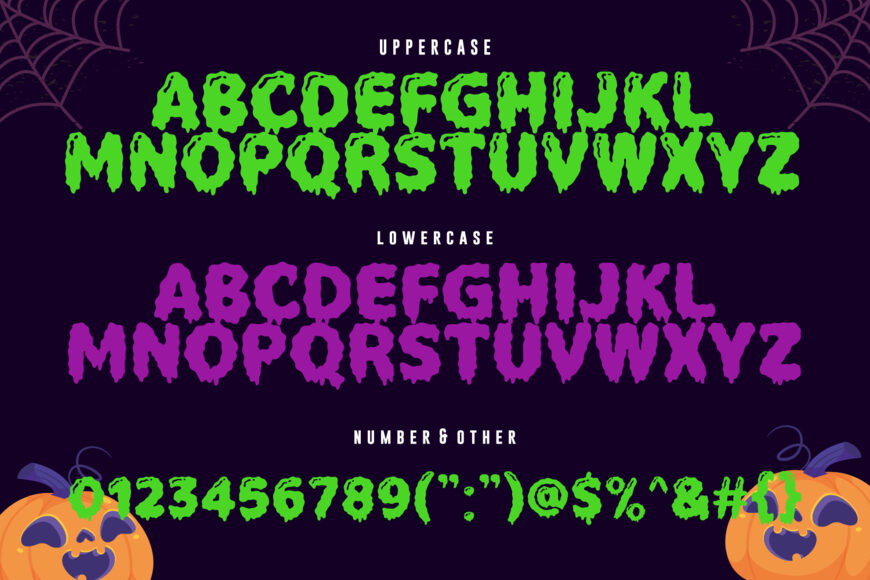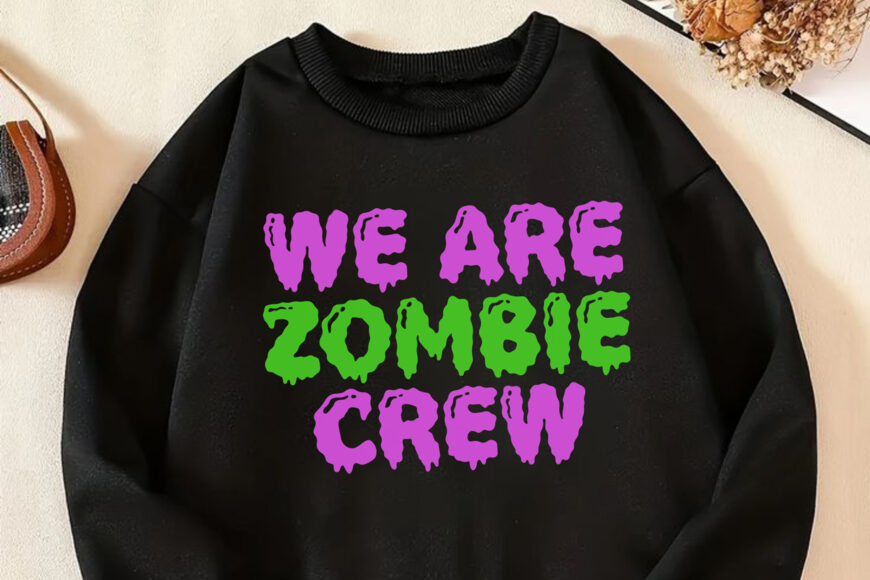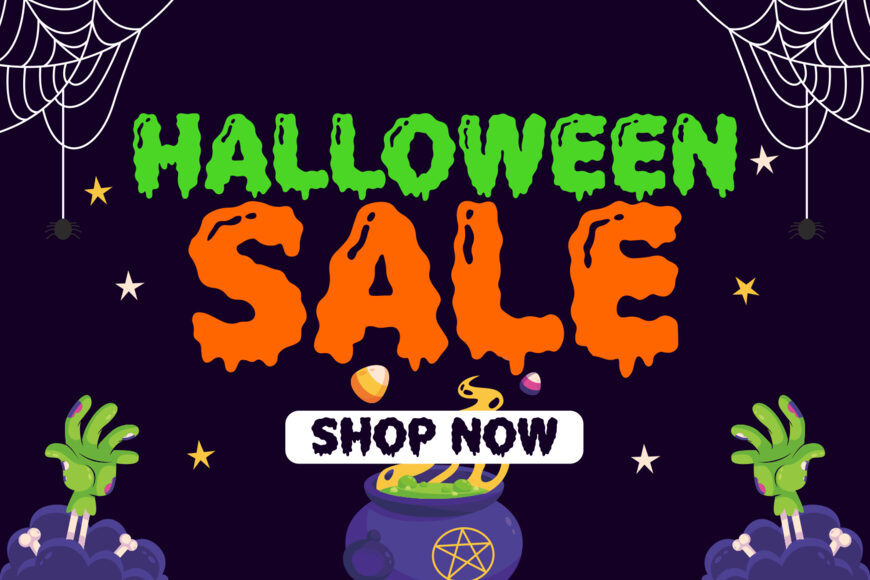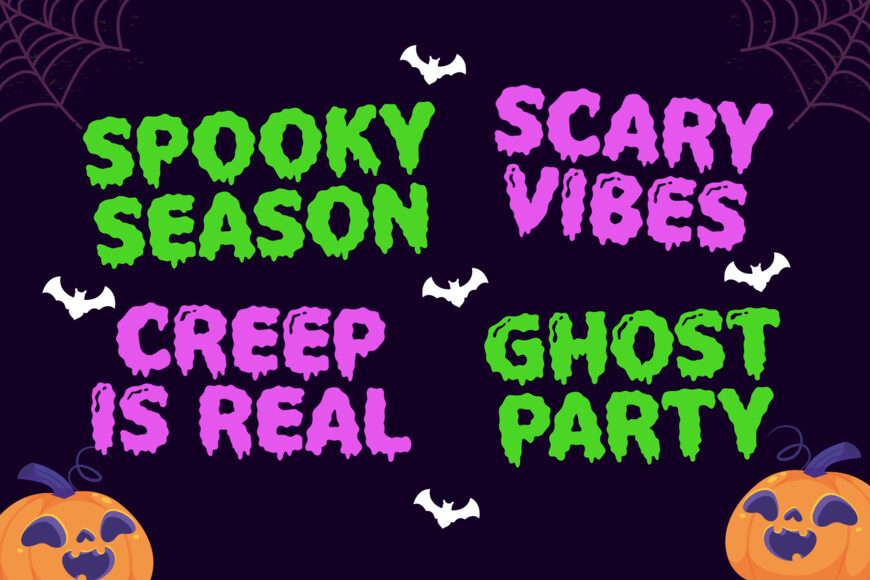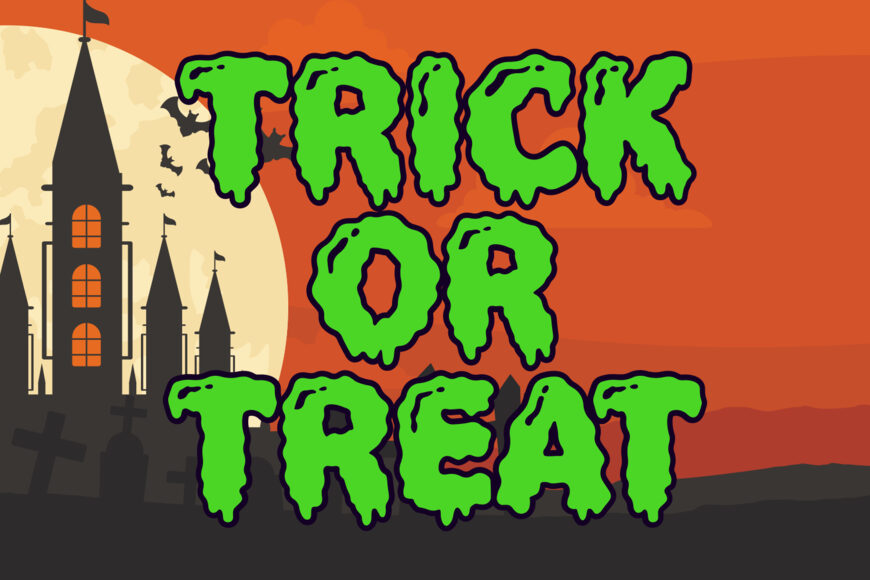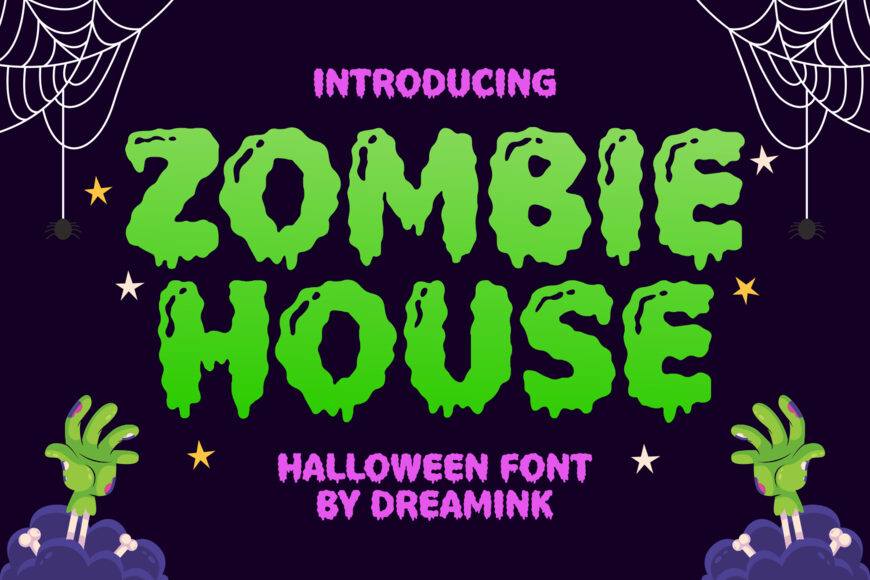
Introducing Zombie House, a Halloween-themed font that draws inspiration from the intriguing allure of blood-like slime. This unique typeface strikes a perfect balance between spooky and adorable, making it an exceptional choice to breathe life into your Halloween projects. Let the cool, ghoul feel of Zombie House transform your design experience, taking you on a quirky, haunted journey!